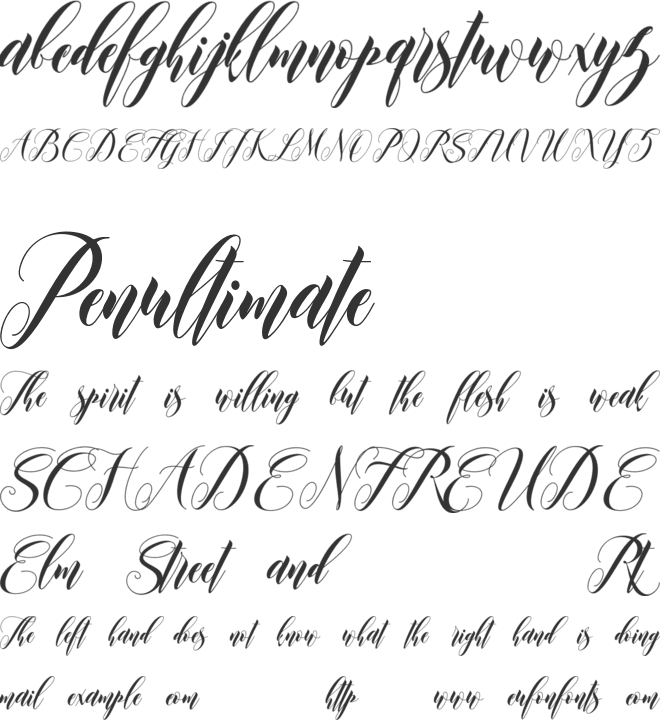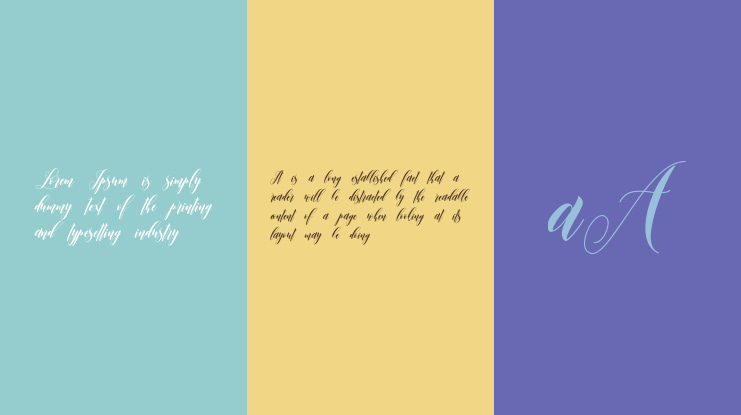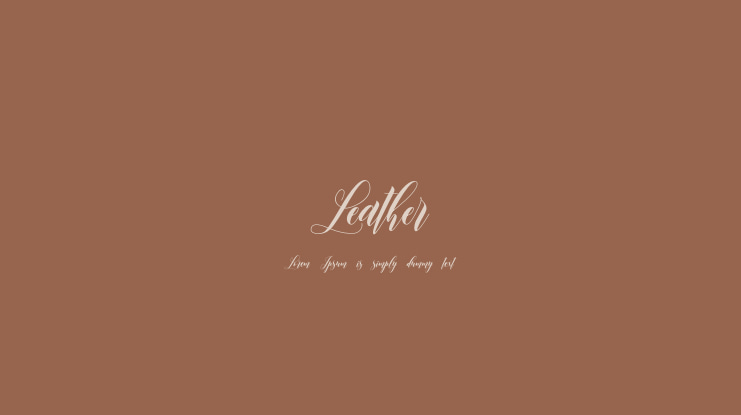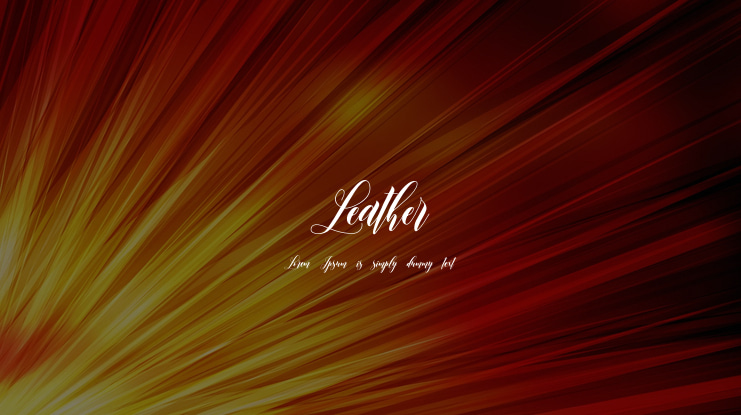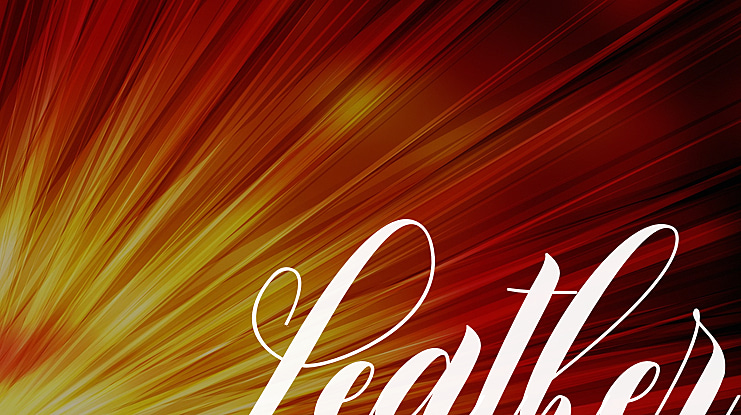
Leather Font
leather font special for any needed like card, branding,label,wedding, . this just for demo , for full version complete with any sweshes and ligatutur please to doowload at :https://www.creativefabrica.com/product/leather/ref/2205/